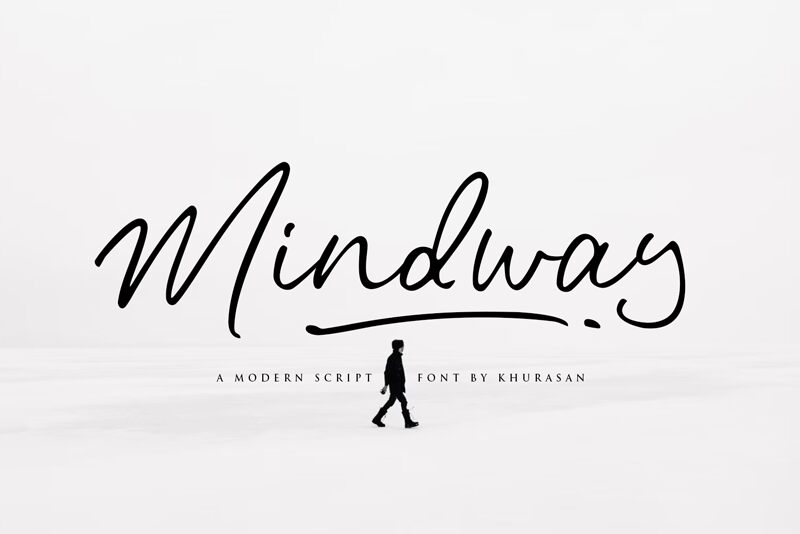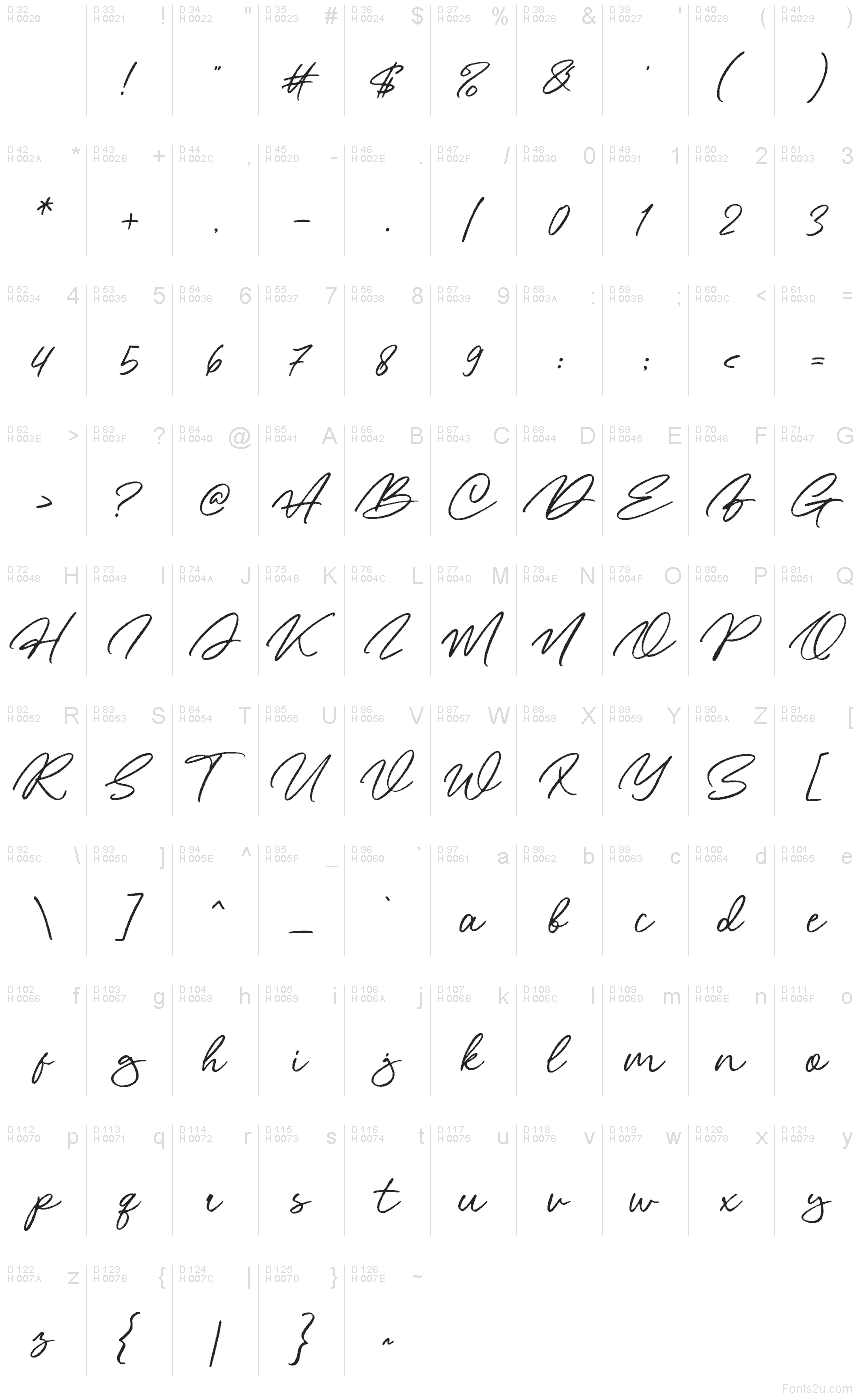
Mindway font by Khurasan is a free handwritten typeface that solves the classic “signature script that stays readable” problem. Its gentle rightward slant, smooth joins, and lightly inky texture feel personal without turning messy, while the roomy rhythm keeps words clear at a glance. The strokes sweep and settle like a quick note on good paper-lively, but controlled.
Using Mindway, you can give polish to boutique logos, product packaging, wedding suites, quote graphics, Instagram posts, and digital signatures. This free font shines on names, short headlines, and brand marks where warmth matters. Pair it with a clean, low-contrast sans for body copy to let the script carry the voice.